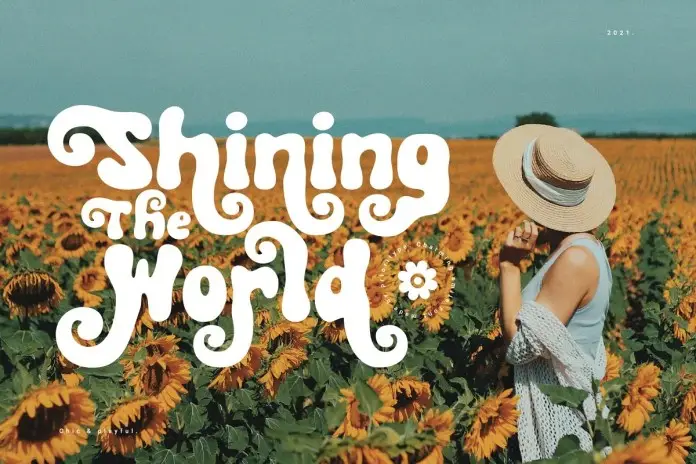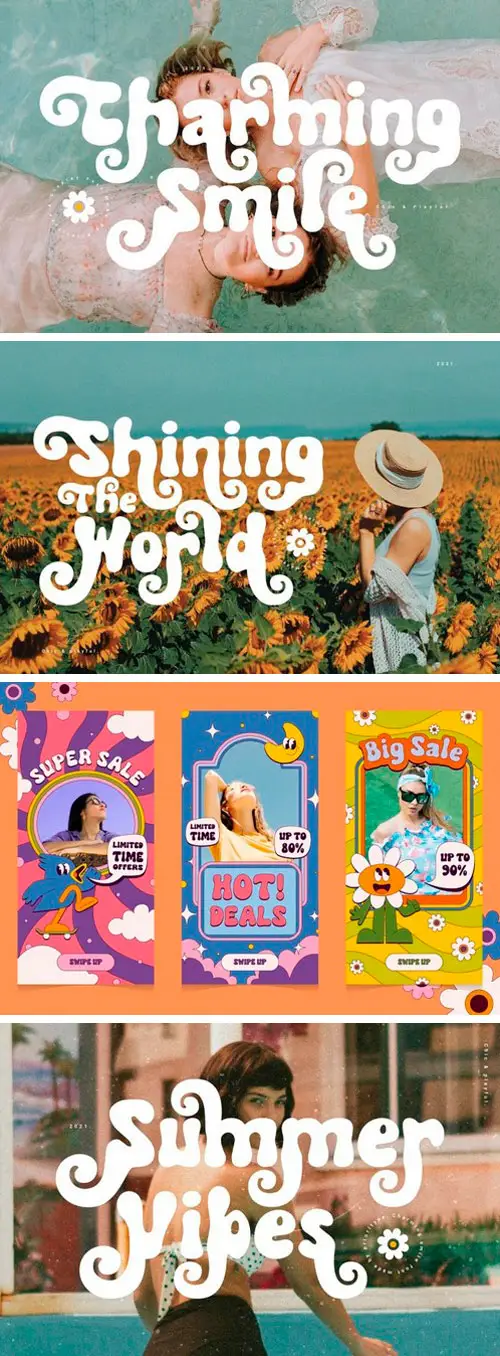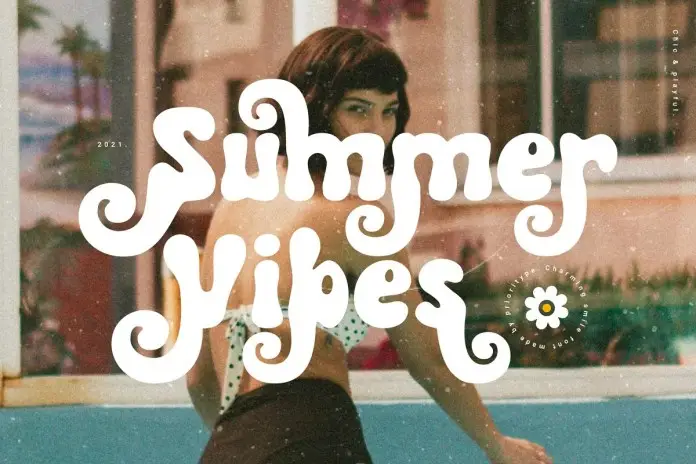
Charming Smile Display Font
The Charming Smile Display Font is a delightful typeface that captures attention with its playful and whimsical design. Perfect for a variety of creative projects, this font brings a sense of joy and friendliness to your text.
• Unique display style
Ideal for branding, logos, invitations, and social media graphics, the Charming Smile Display Font is versatile enough to be used in both digital and print projects.